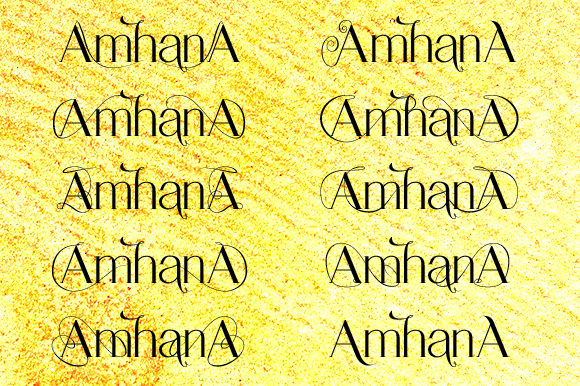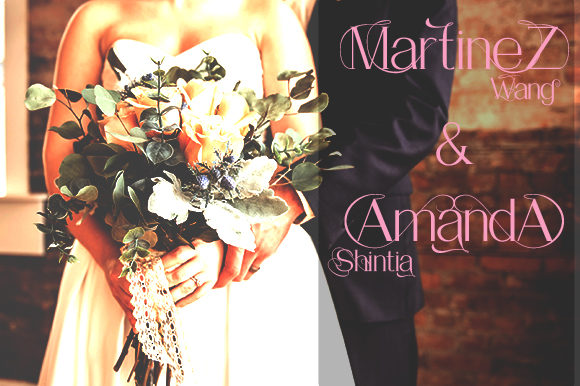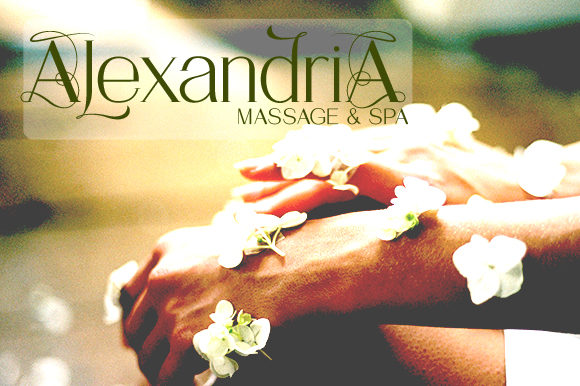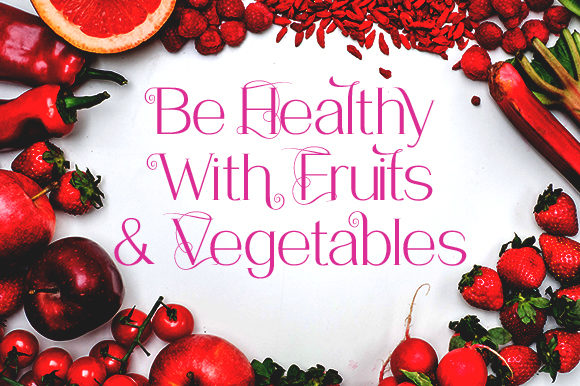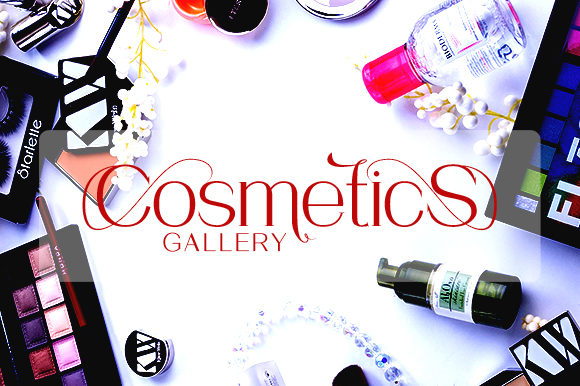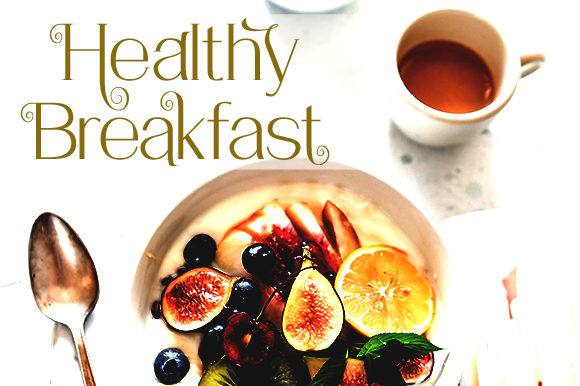
Introducing HalfbreD Font: Elevate Your Designs with Elegant Simplicity
In the world of typography, finding the perfect font that embodies both elegance and versatility can be a daunting task. However, look no further than HalfbreD Font, a stunning decorative font that distills sophistication into a truly exceptional design. This remarkable font is meticulously crafted to excel in various applications, from headlines and titles to blocks of text, making it an indispensable asset for designers and crafters alike.
Unleash Your Creativity with HalfbreD
HalfbreD Font is specifically designed to shine in headlines of all sizes, as well as in blocks of text that require both maximum and minimum variations. Its unique design ensures that it adapts seamlessly to different contexts, whether it’s for web applications, print materials, moving images, or any other creative project. The font’s exceptional versatility makes it an ideal choice for a wide range of design endeavors, from branding and advertising to packaging and digital media.
A Masterclass in Elegant Simplicity
What sets HalfbreD apart is its ability to simplify elegance into a single, outstanding font. Its design strikes the perfect balance between sophistication and readability, making it effortless to create visually stunning content. The font’s clean lines, subtle nuances, and carefully crafted letterforms come together to create a truly spectacular visual experience. Whether you’re looking to create eye-catching headlines or engaging blocks of text, HalfbreD Font is the perfect tool to elevate your designs.
HalfbreD Font offers a world of creative possibilities for designers and crafters. Here are just a few examples of how you can harness the power of this exceptional font:
• Branding and Identity: Use HalfbreD to create stunning logos, business cards, and letterheads that exude elegance and sophistication.
• Web Design: Elevate your website’s typography with HalfbreD, ensuring a consistent and visually appealing user experience across all devices.
• Print Materials: From brochures and flyers to posters and billboards, HalfbreD Font is the perfect choice for creating eye-catching print materials.
• Digital Media: Use HalfbreD to add a touch of elegance to your social media graphics, video titles, and other digital content.
Why Choose HalfbreD Font?
With so many fonts available, why choose HalfbreD? Here are just a few compelling reasons:
• Unparalleled Versatility: HalfbreD Font excels in a wide range of applications, from headlines to blocks of text.
• Elegant Simplicity: The font’s design strikes the perfect balance between sophistication and readability.
• Exceptional Quality: HalfbreD Font is crafted with meticulous attention to detail, ensuring a truly spectacular visual experience.
In conclusion, HalfbreD Font is a game-changing decorative font that simplifies elegance into a truly outstanding design. Its exceptional versatility, elegant simplicity, and exceptional quality make it an indispensable asset for designers and crafters alike. Whether you’re looking to elevate your branding, web design, print materials, or digital media, HalfbreD Font is the perfect choice. So why wait? Discover the power of HalfbreD Font and take your designs to new heights of sophistication and elegance.